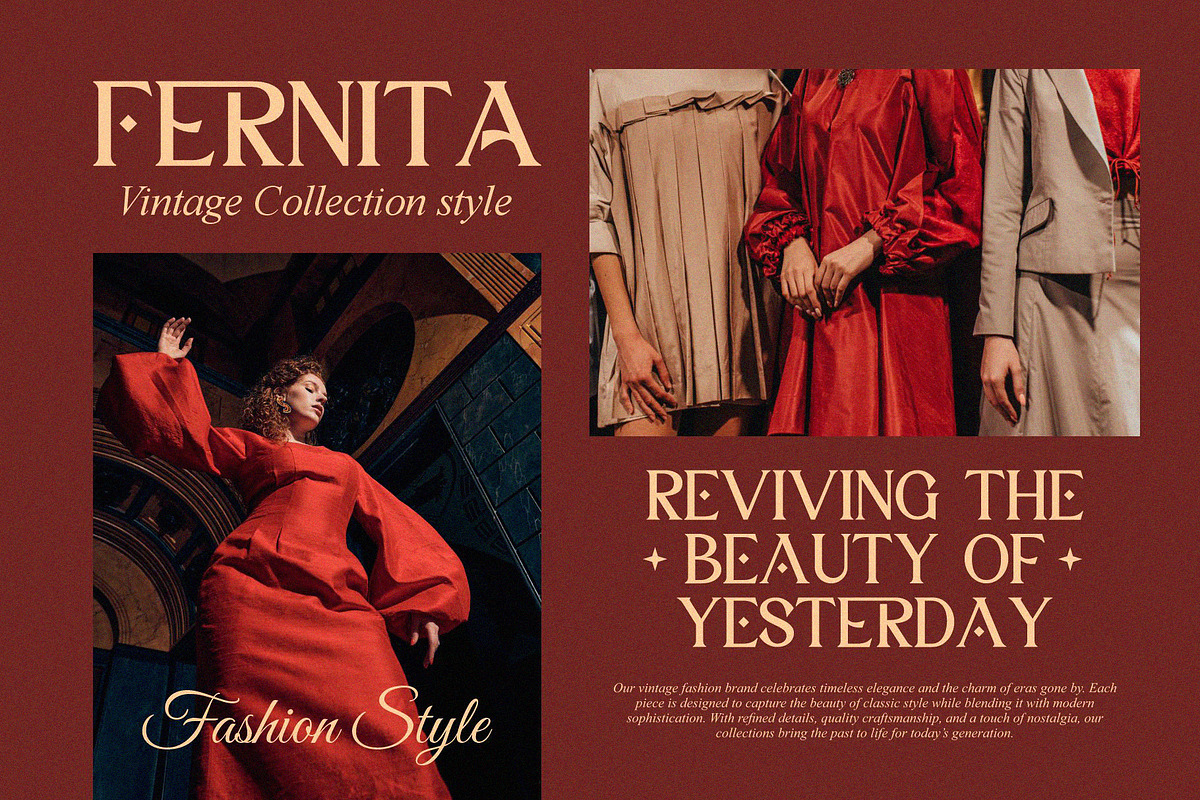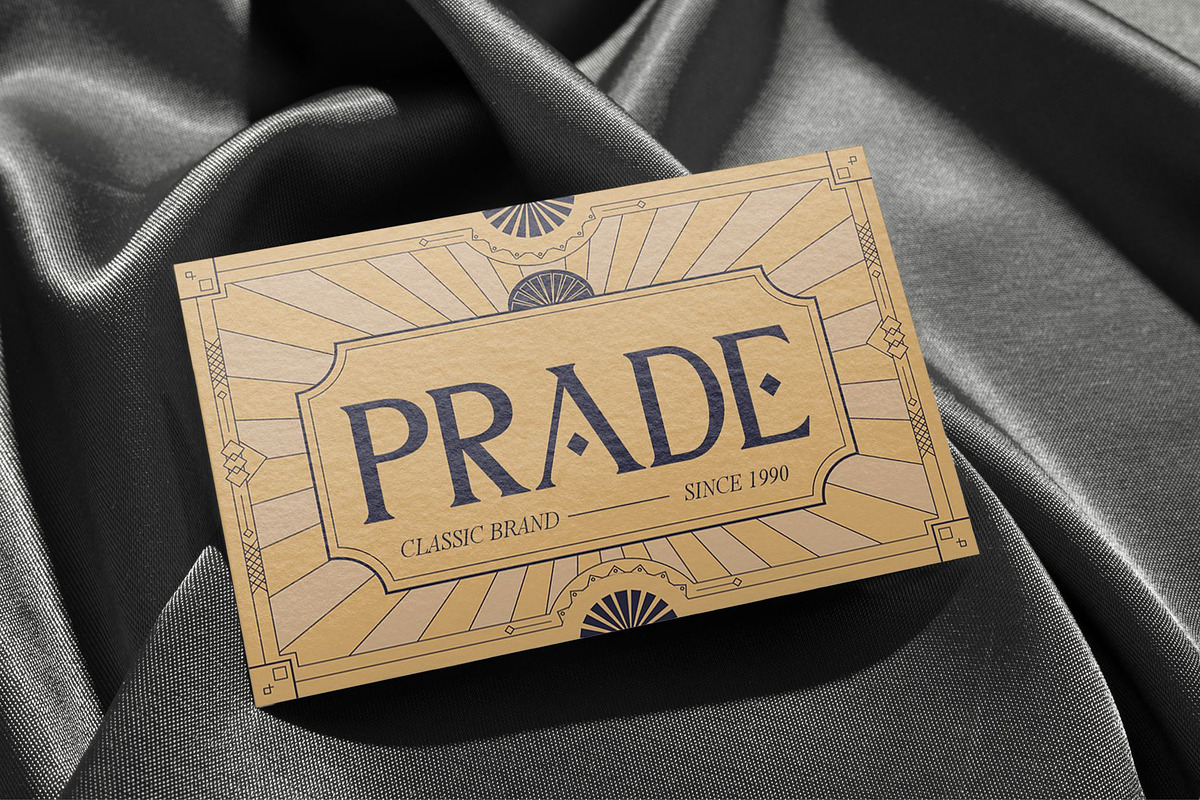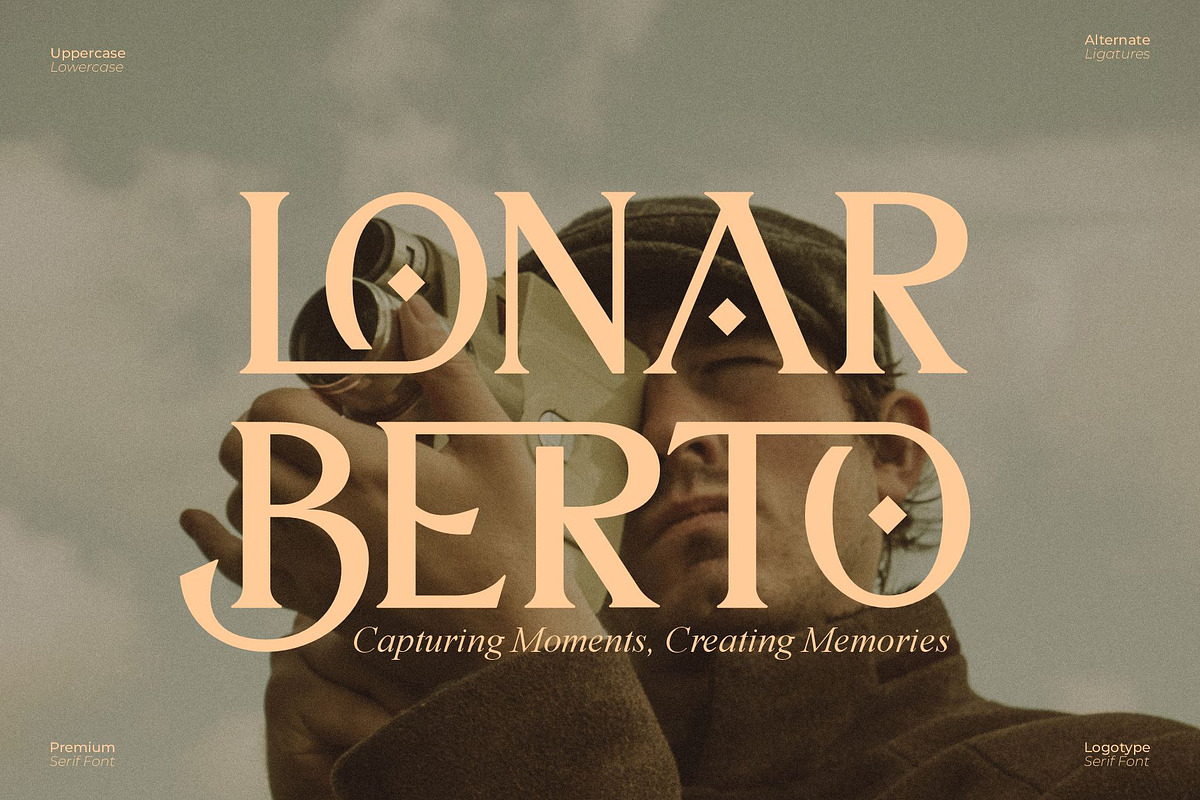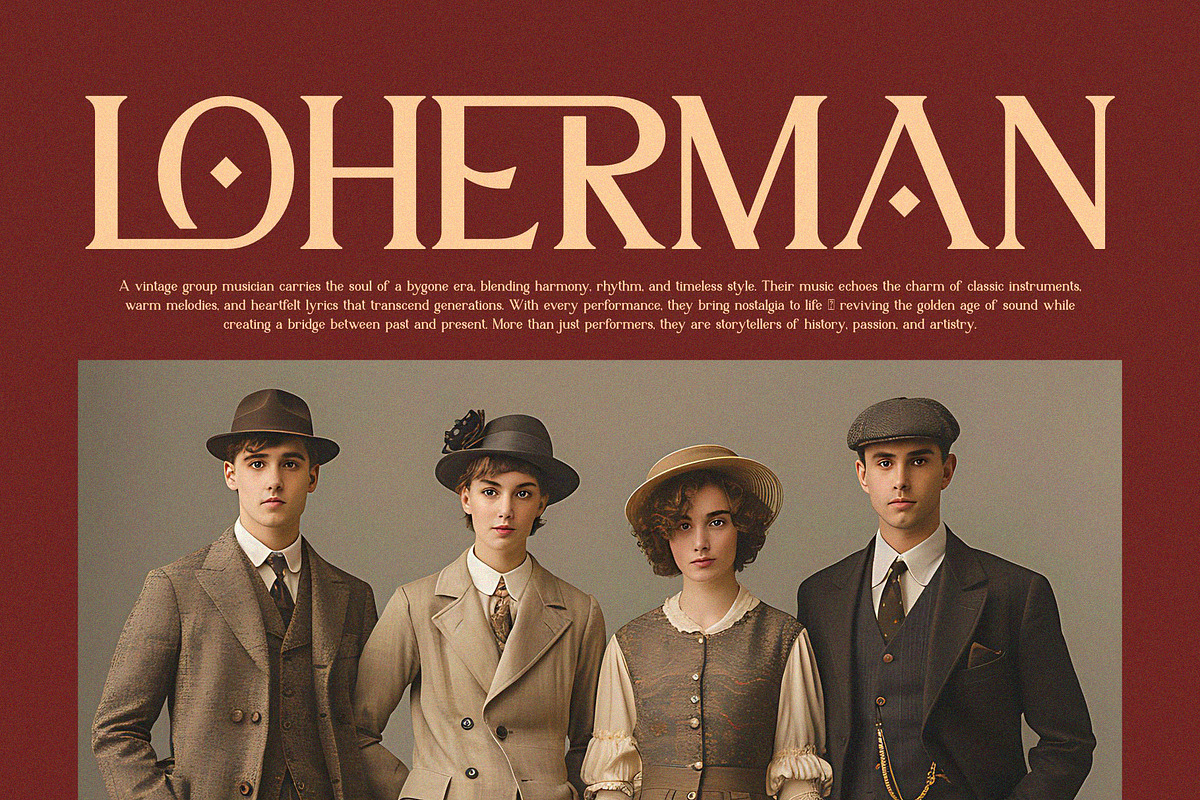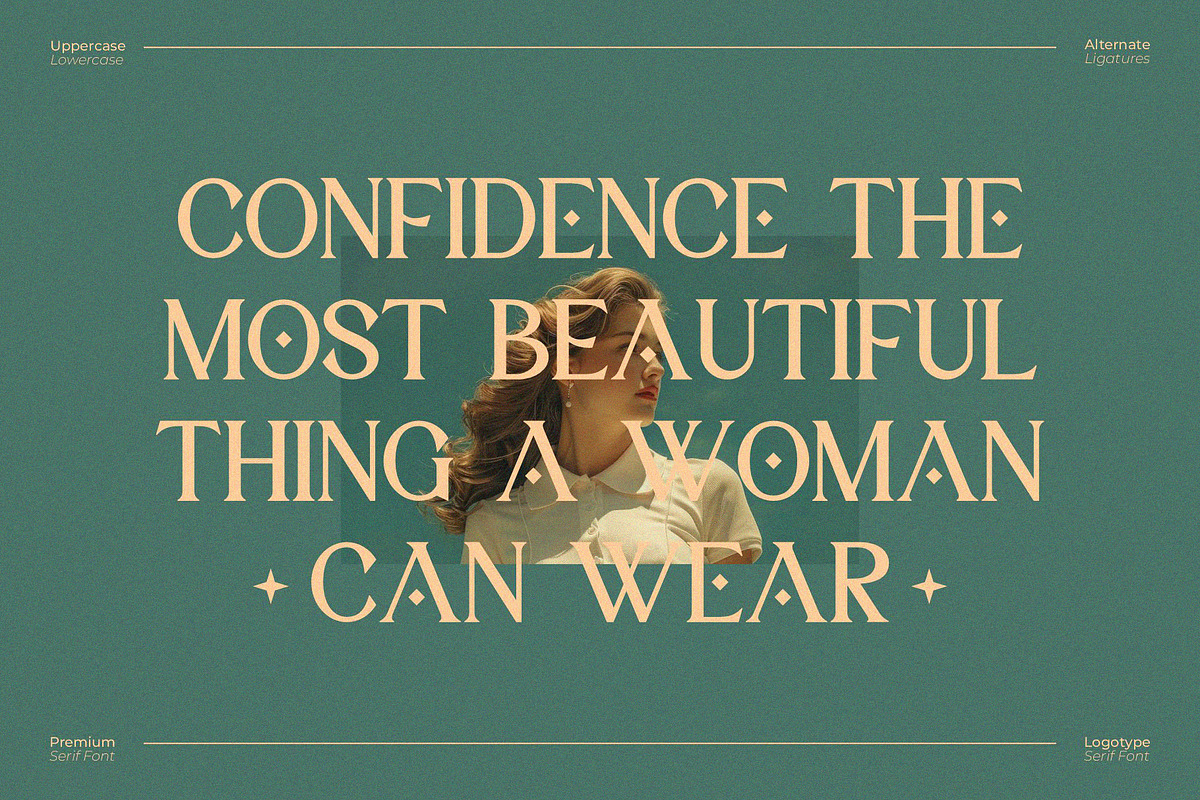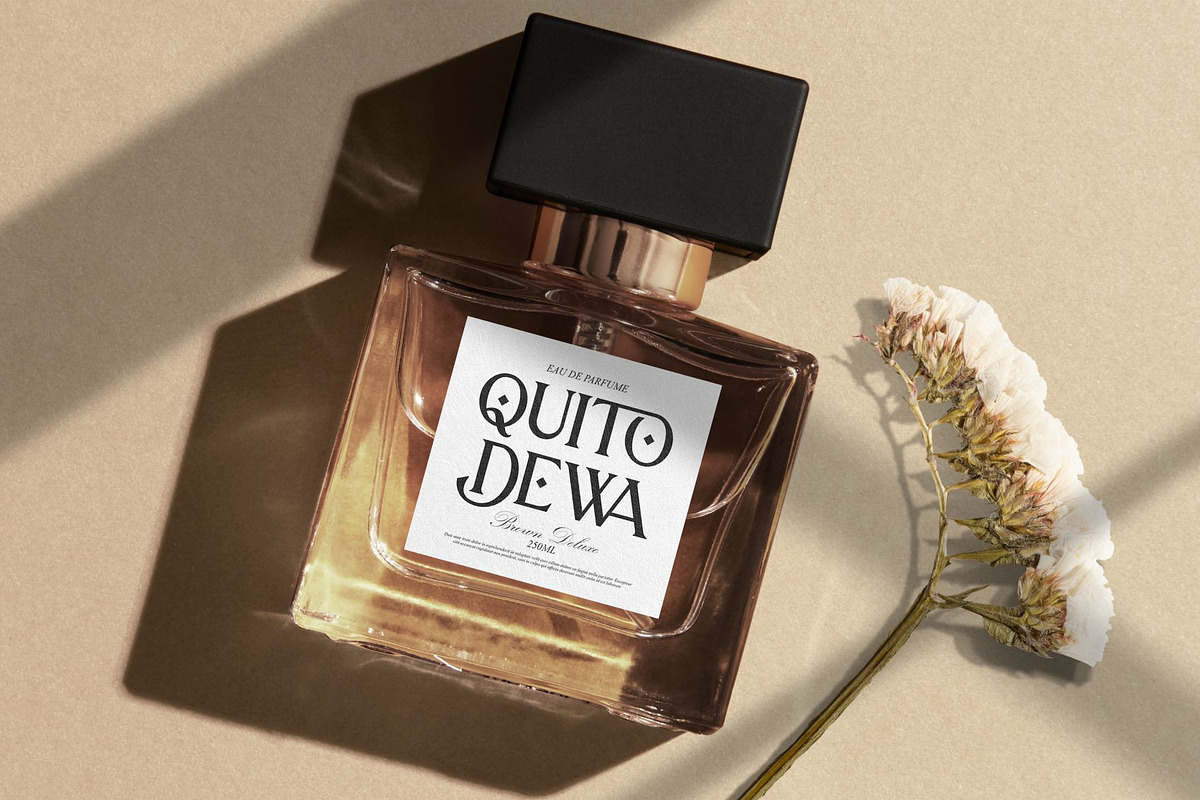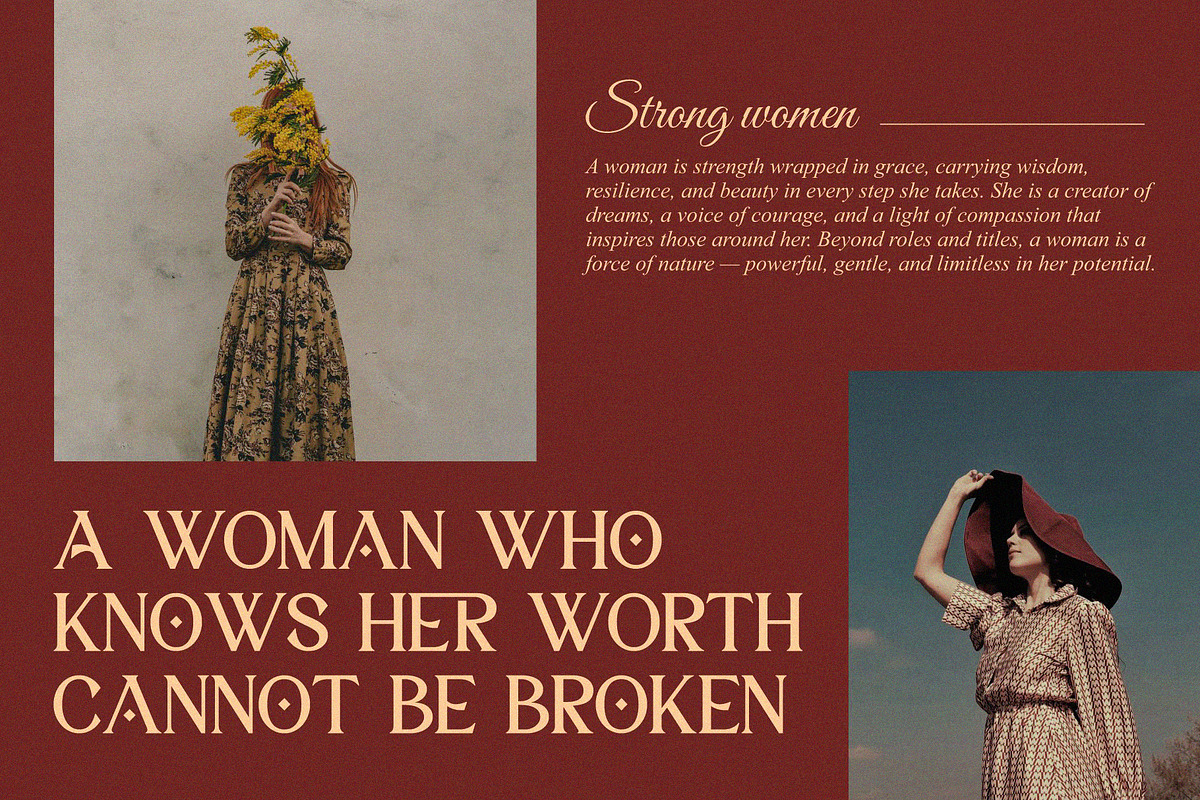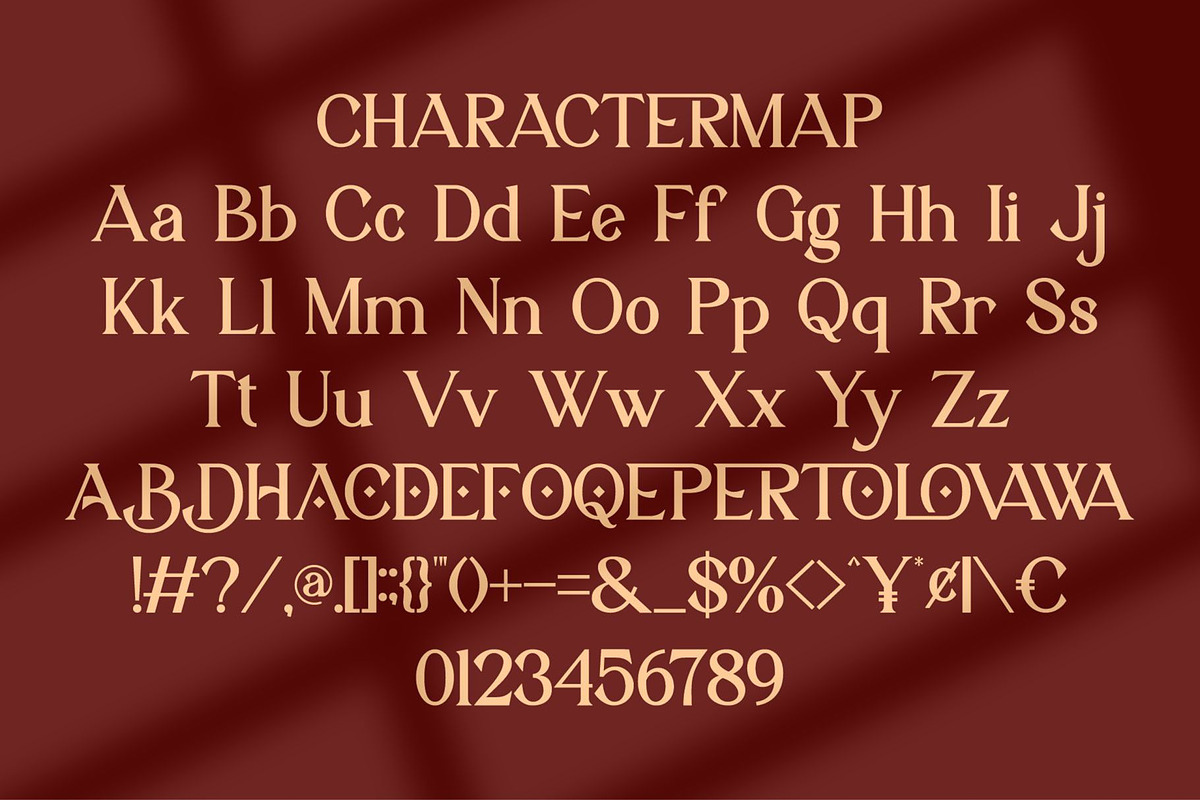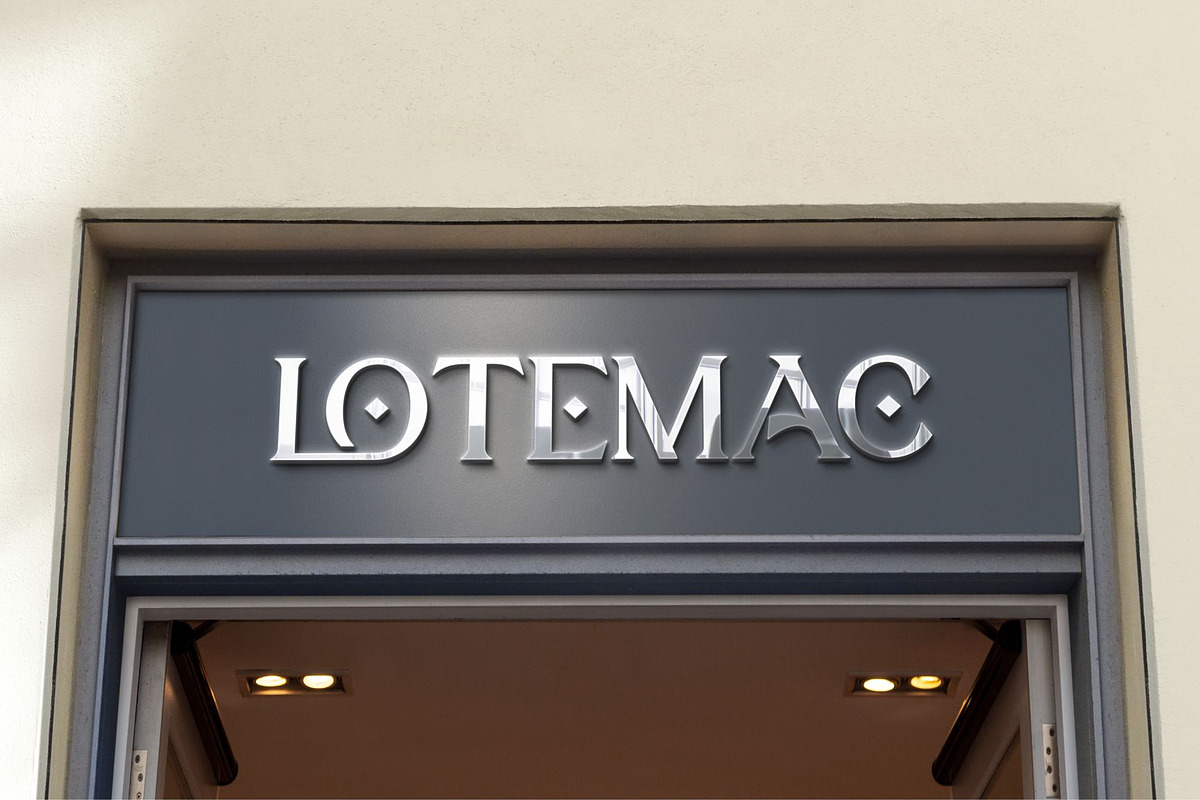
Bilova || Retro Vintage Serif Font
Bilova Serif is a retro and vintage font type for all branding and logo designs. This retro and vintage Serif font has a beautiful character. This font is suitable for invitation card designs, cool logos, movie titles, movie names, business cards, book titles, brand names, and various other designs. Bilova Serif is a smooth serif font that exudes sophistication and the moment. Its stylish ligatures make this font a perfect partner for any project.